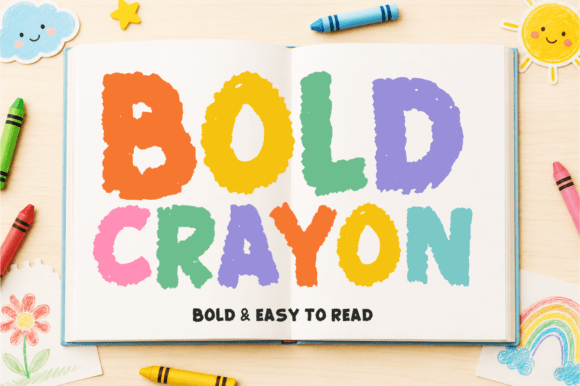
Unleashing Creativity with Bold Crayon Font
Remember the pure joy of coloring with crayons as a child? The vibrant colors, the scratchy texture, and the feeling of bringing your imagination to life? For many of us, those carefree moments are etched in our memories, and it’s this nostalgia that makes the Bold Crayon Font so special.
This delightful hand-drawn display font is inspired by the authentic, textured look of wax crayon drawings. With its chunky letterforms and sketchy edges, it’s the perfect addition to any project that needs a splash of warmth and playfulness. Whether you’re creating educational tools, colorful merchandise, or simply want to add some whimsy to your design, the Bold Crayon Font is sure to bring a smile to your face.
Bold Crayon Font Key Features
- Font Family: Bold Crayon – a unique, hand-drawn font with bold lines and vibrant colors.
- Unique Characteristics: Features bold, colorful lines, and a playful, hand-drawn feel, making it perfect for children’s books, educational materials, and creative projects.
Bold Crayon Font Review
Overall, I’m quite pleased with the Bold Crayon Font – it’s a fun, vibrant option for designers looking to add some personality to their projects. ✨
- Unique, playful aesthetic that’s sure to stand out.
- Works well in bold, making it perfect for headings and titles.
- Comes in a range of colors, allowing for plenty of customization options.
- May not be suitable for formal or professional projects, as it’s quite playful and attention-grabbing.
- Some letters may not be legible at smaller font sizes, which can be a concern for body text.
- Not as versatile as some other font options, as it’s primarily designed for display use.
- Playful advertising campaigns
- Whimsical wedding invitations
- Fun and educational materials
While the Bold Crayon Font isn’t perfect, I think it’s a great option for designers looking to add some whimsy and fun to their projects. With its unique aesthetic and range of customization options, it’s a great choice for kids’ books, advertising campaigns, or any other project that needs a playful touch.
Use the Bold Crayon Font to add a playful and creative touch to your designs. Pair it with bright colors and bold graphics to create a visually appealing effect.
Experiment with different font sizes and styles to create a unique and eye-catching design.
The Bold Crayon Font is perfect for:
Alternatives to Bold Crayon Font for Designers
Great Vibes Font is a modern, hand-drawn font that is perfect for creating a playful and energetic atmosphere. It is ideal for use in logos, advertisements, and social media graphics. Great Vibes Font is similar to Bold Crayon Font in its playful and whimsical nature, but it has a more refined and sophisticated look.
Alex Brush Font is a beautiful, handwritten font that is perfect for creating a touch of elegance and sophistication. It is ideal for use in invitations, greeting cards, and other formal documents. Alex Brush Font is similar to Bold Crayon Font in its expressive and cursive nature, but it has a more refined and luxurious look.
Pacifico Font is a beautiful, modern script font that is perfect for creating a relaxed and casual atmosphere. It is ideal for use in logos, advertisements, and social media graphics. Pacifico Font is similar to Bold Crayon Font in its playful and laid-back nature, but it has a more refined and polished look.
Dancing Script Font is a beautiful, handwritten font that is perfect for creating a touch of whimsy and playfulness. It is ideal for use in invitations, greeting cards, and other formal documents. Dancing Script Font is similar to Bold Crayon Font in its expressive and cursive nature, but it has a more elegant and sophisticated look.